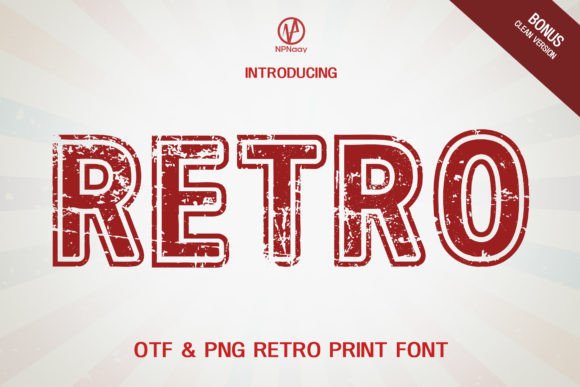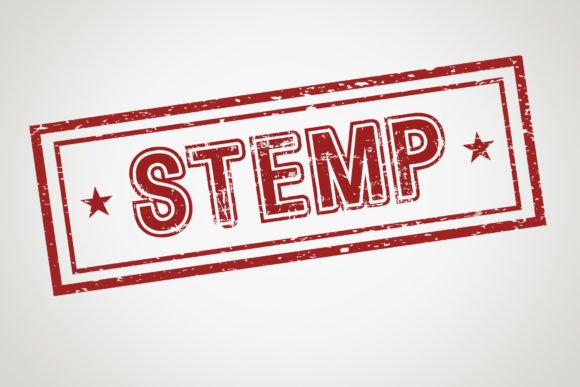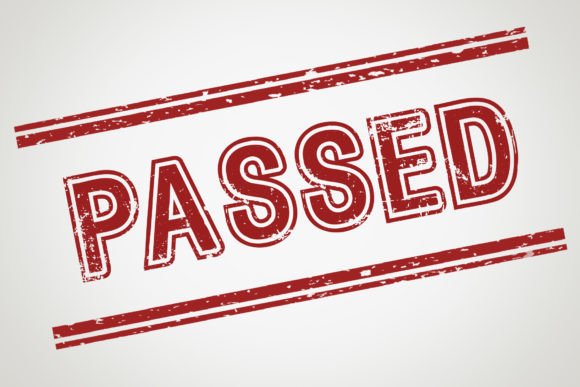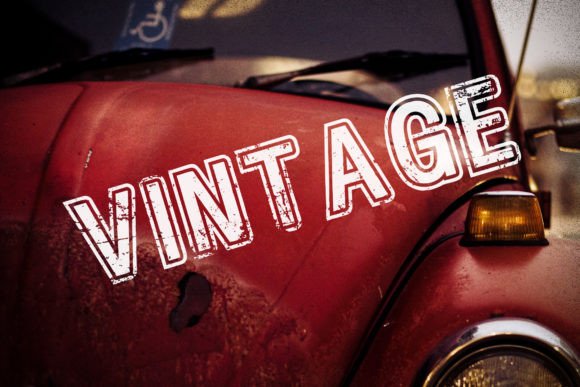
Retro Font
About the Retro Font
Welcome to the world of Retro Font, a typeface that will inspire your next great project. Introducing “Retro Font” – a retro vintage and grunge-distressed display font that will make each of your designs stand out more. Perfect for logos, posters, websites, T-shirts and more. Elevate your projects with this unique font, and you will love the results.
Retro Font’s strong, distressed texture makes it ideal for headlines, posters, and branding projects requiring a vintage or grunge aesthetic. It excels in short, impactful statements and logos, lending a rebellious, bold personality. However, its low readability makes it unsuitable for body text or UI elements requiring long passages.
Pairing Retro Font effectively requires considering its rugged character. A clean sans-serif like Helvetica or a geometric sans-serif such as Futura provides a sharp contrast and enhances readability in supporting text. For a softer touch, a neutral serif like Garamond could balance the font’s edginess.
This font’s core personality is bold and rebellious, best suited for brands projecting a vintage, gritty, or street-style image. Avoid using it where elegance or sophistication are paramount.
Retro Font Usage Examples
Retro Font Example